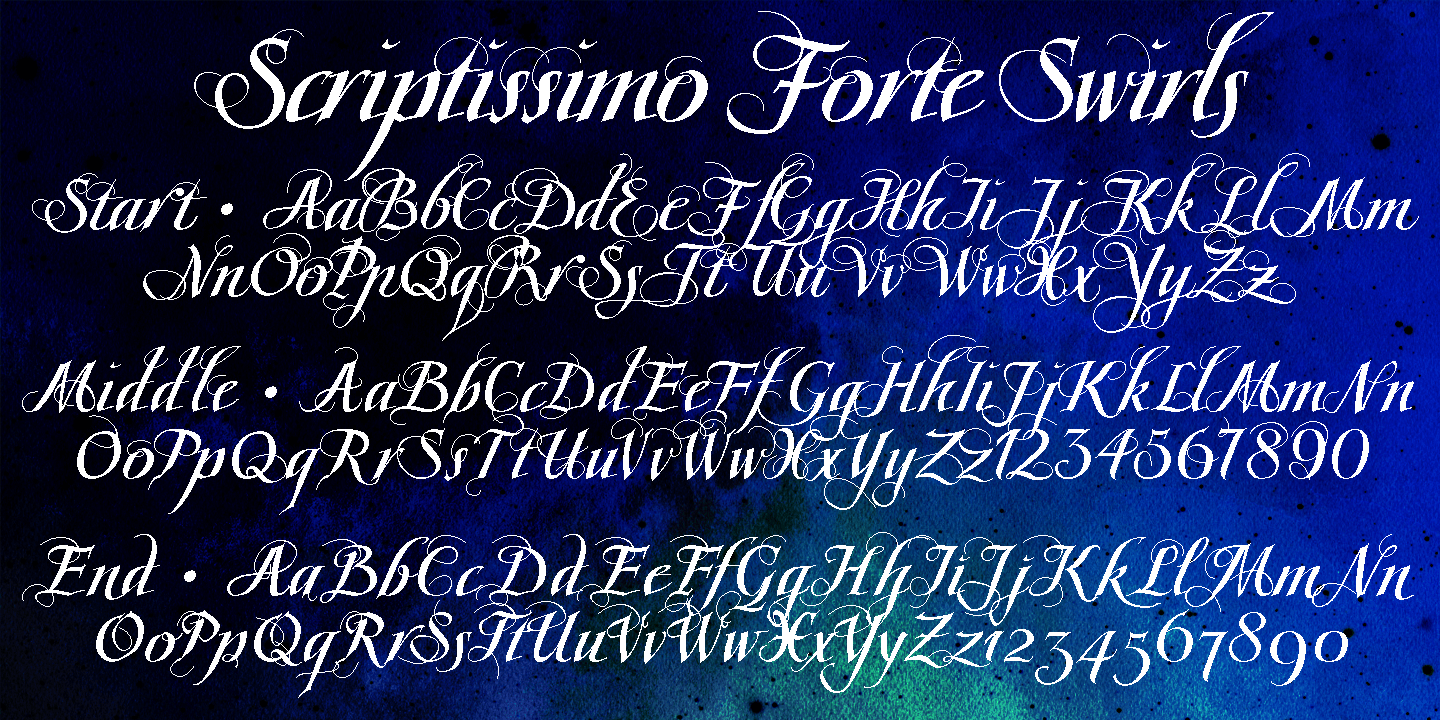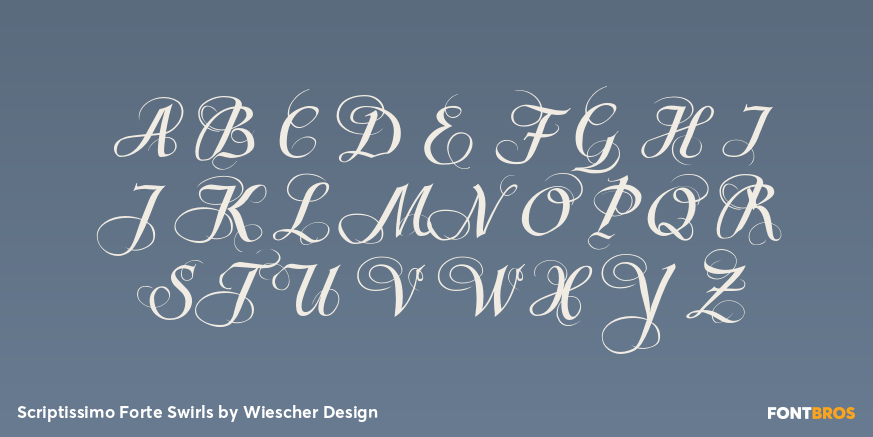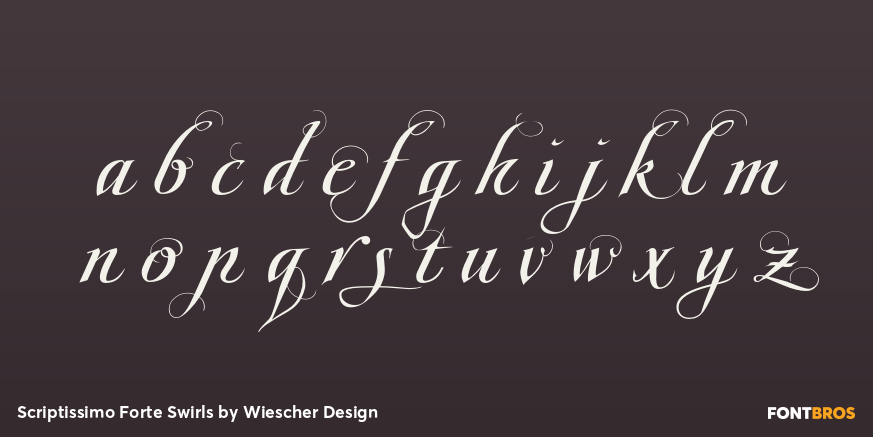
Scriptissimo Forte Swirls
Scriptissimo-Forte-Swirls is the bold version of Scriptissimo but with lots of swirls.
Sometimes a job just calls for lots of embellishments, that's what this version is good for.